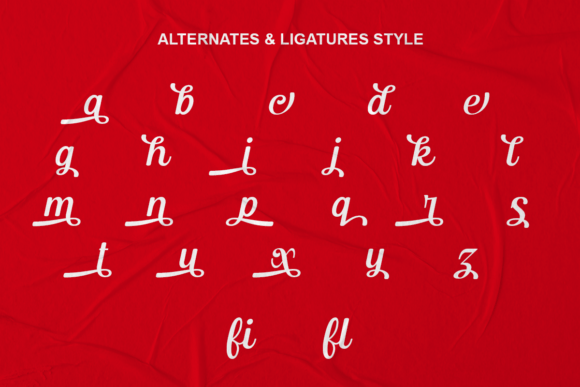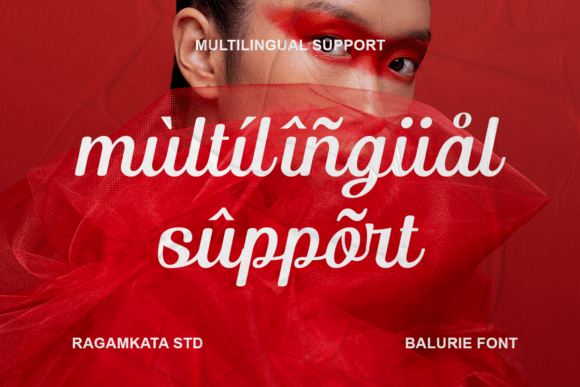
Introducing Balurie Regular Font: Elevate Your Designs with Luxurious Elegance
Are you looking for a font that exudes sophistication, elegance, and a touch of vintage charm? Look no further than Balurie Regular Font. This stunning script font is designed to add a level of refinement and luxury to any design project, making it perfect for designers and crafters seeking to create high-end compositions.
The Distinctive Features of Balurie Regular Font
Balurie Regular Font boasts a noble appearance, characterized by graceful stroke beginnings, swash-laden capitals, and a formal structure that commands attention. Its classic and timeless design makes it an excellent choice for a wide range of applications, from classic logo design to vintage sports aesthetics and ornate lettering for editorials.
Unleash Your Creativity with Extensive Flexibility
What truly sets Balurie apart from other fonts is its wealth of alternate characters, swashes, ligatures, and tail variations—ranging in shape and width. This extensive range of features gives designers the flexibility to craft personalized and sophisticated compositions that reflect their unique style and vision.
Crafting Personalized Compositions
With Balurie Regular Font, you can experiment with different combinations of characters, swashes, and ligatures to create one-of-a-kind designs. The font’s refined curves and ornamental features ensure that every project feels elevated, expressive, and distinctive. Whether you’re designing a logo, creating editorial lettering, or developing a brand identity, Balurie adapts effortlessly to your needs.
Applications for Balurie Regular Font
The versatility of Balurie Regular Font makes it suitable for a wide range of applications, including:
- Classic Logo Design: Create sophisticated and timeless logos that reflect your brand’s elegance and refinement.
- Vintage Sports Aesthetics: Add a touch of nostalgia and luxury to your sports branding and advertising.
- Ornate Lettering for Editorials: Elevate your editorial designs with beautiful, hand-crafted lettering that exudes elegance and sophistication.
Why Choose Balurie Regular Font?
By choosing Balurie Regular Font, you’ll gain access to a high-quality, luxurious script font that will elevate your designs and set you apart from the competition. With its extensive range of features, flexibility, and timeless design, Balurie is the perfect choice for designers and crafters seeking to create sophisticated and distinctive compositions.
In conclusion, Balurie Regular Font is a luxurious script font that offers a unique blend of elegance, sophistication, and vintage charm. Its extensive range of features, flexibility, and timeless design make it an excellent choice for designers and crafters seeking to create high-end compositions. Whether you’re designing a logo, creating editorial lettering, or developing a brand identity, Balurie adapts effortlessly to your needs, ensuring that every project feels elevated, expressive, and distinctive.